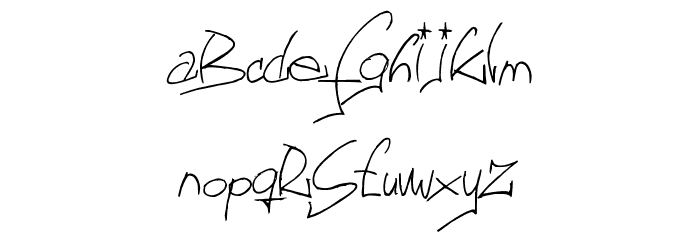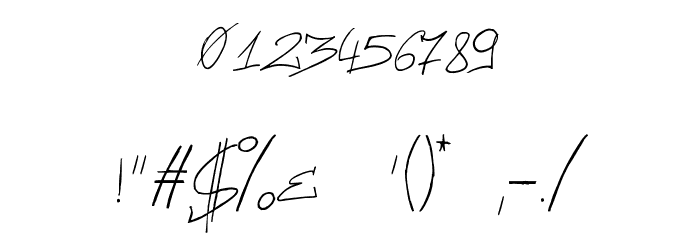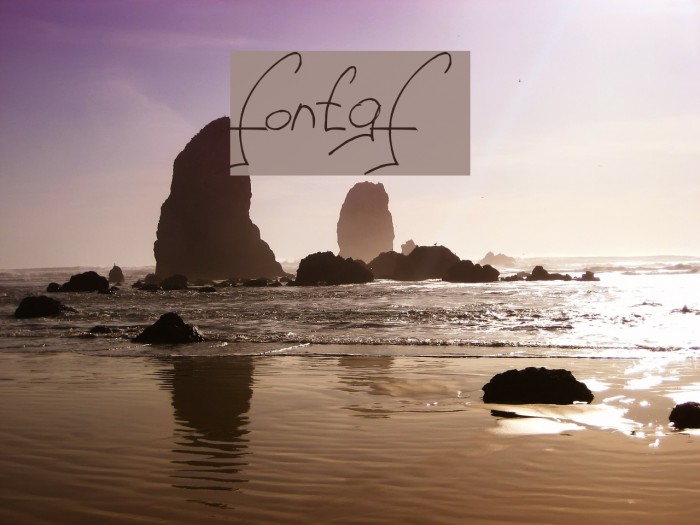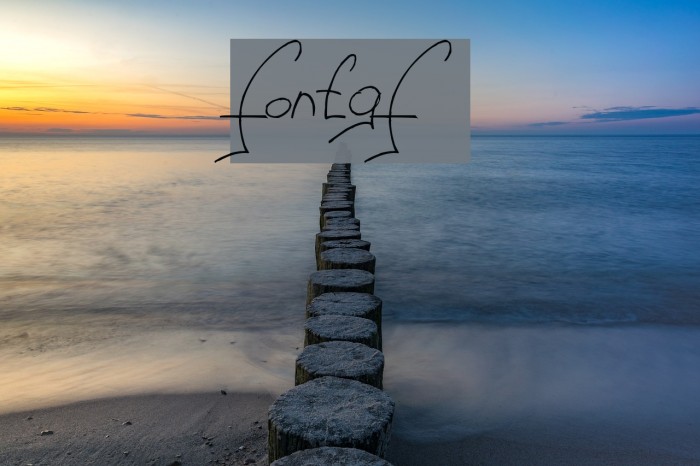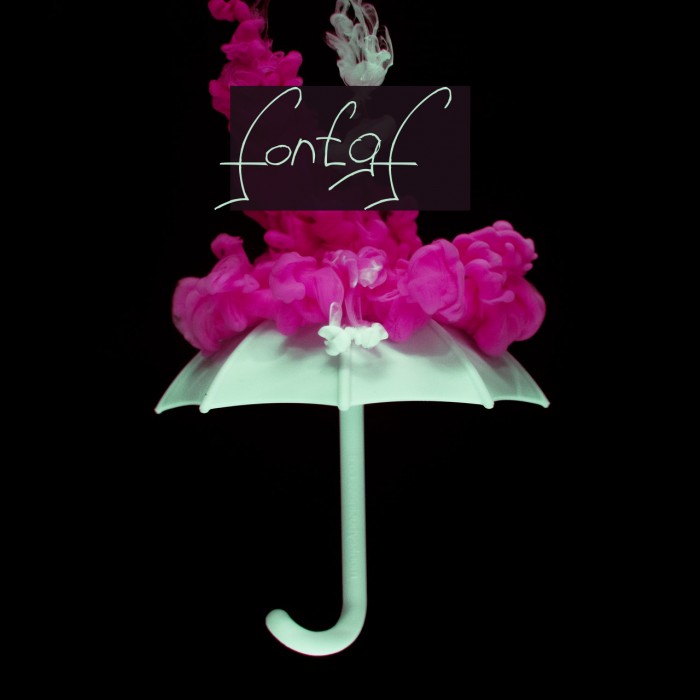
FontGF Font
This font features a unique, handwritten style with an artistic flair. The characters are fluid and dynamic, with varying stroke thickness that adds a sense of movement and personality. The uppercase letters are bold and expressive, while the lowercase letters maintain a consistent flow, creating a harmonious balance. The numerals and special characters follow the same stylistic approach, ensuring a cohesive look across all elements. This font is perfect for projects that require a personal touch, such as invitations, greeting cards, or creative branding. Its distinctive style makes it stand out, capturing attention with its playful yet sophisticated appearance.
A dynamic, handwritten font with artistic flair and varying stroke thickness.
- Proposed Projects: Ideal for invitations, greeting cards, creative branding, and artistic projects.
- Use Case: Logos, Headlines, Artistic projects